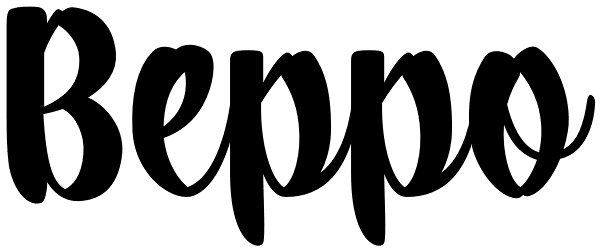
Beppo
Beppo is a bold upright casual script with a condensed character width and a full palette of ordindals, small caps, and diacritics. Beppo flavors things up with old style figures and quirky, contextual alternate connections. Legible, compact and...